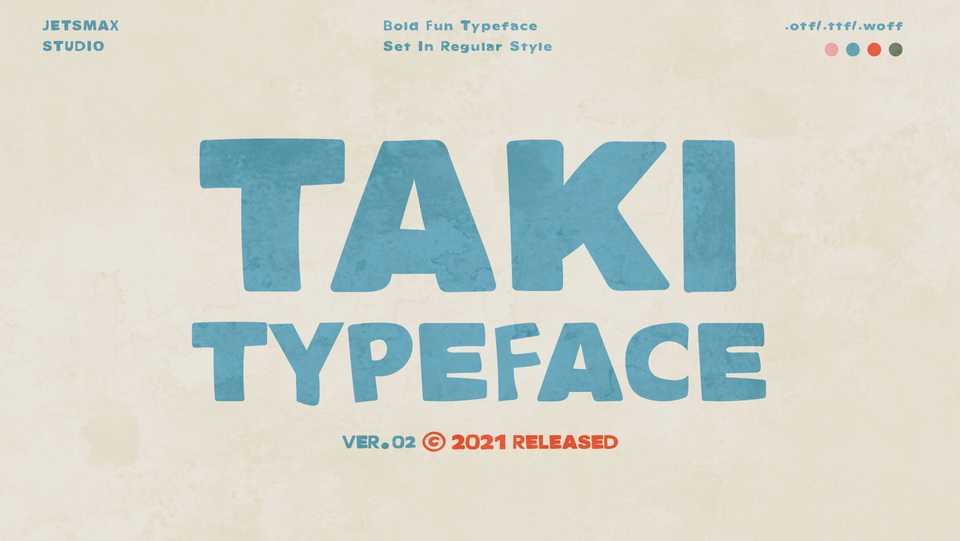
Download Taki font, a quirky display typeface, embodying boldness and uniqueness in every curve. The authenticity of Taki will turn any creative ideas into something standout!
Designer: Jetsmax Studio